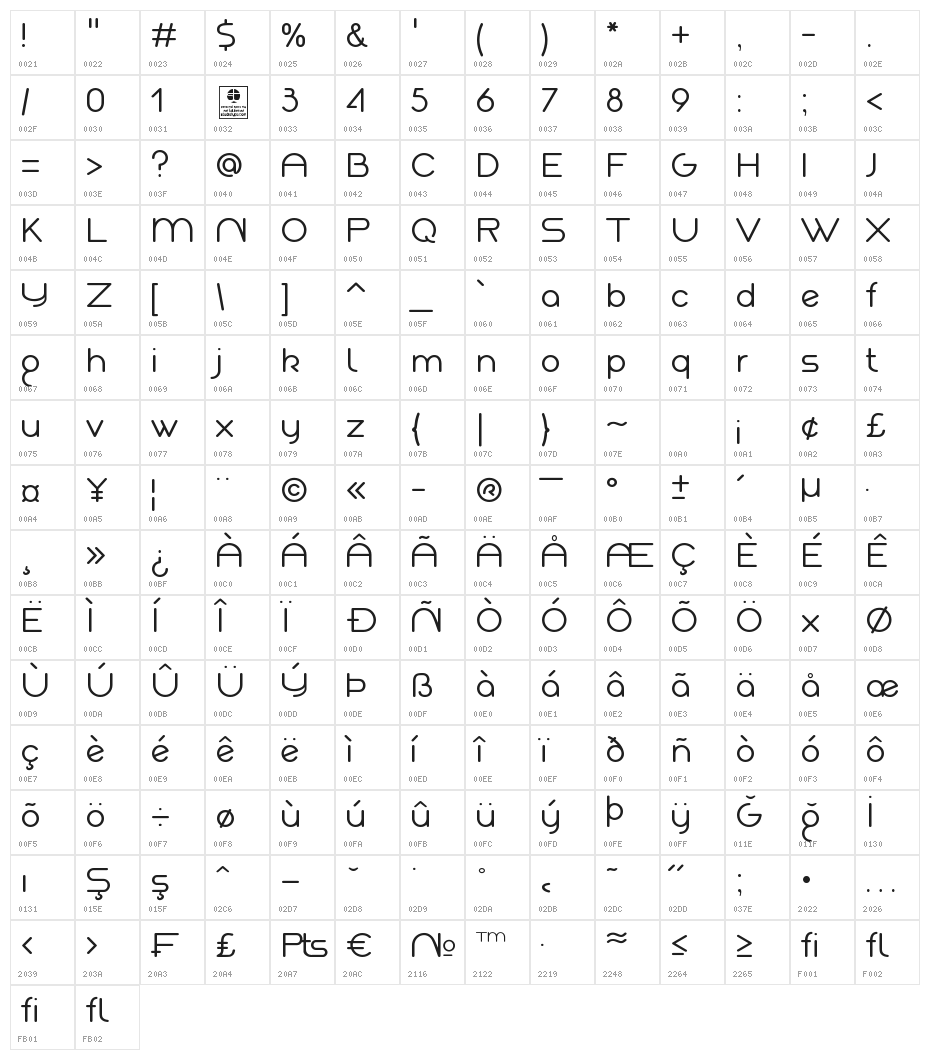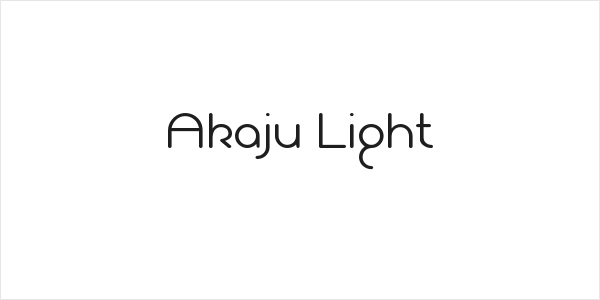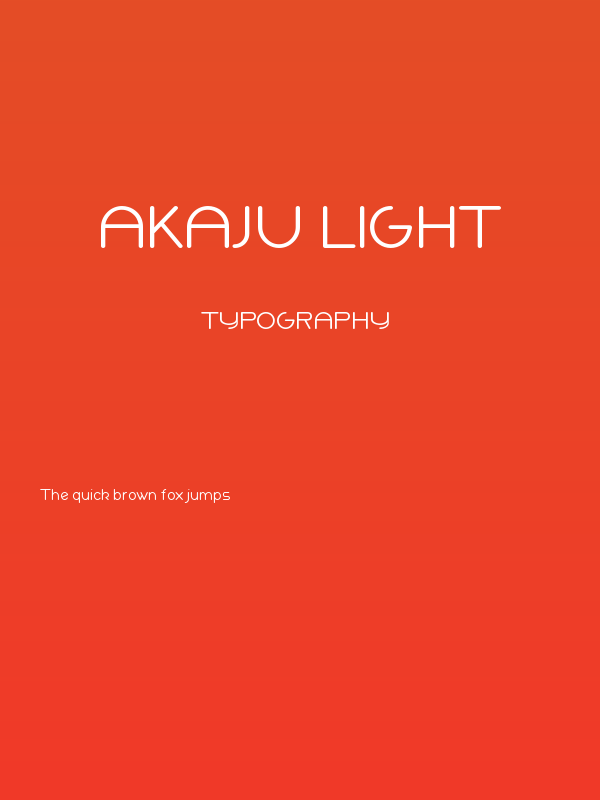
Akaju Light Font
Akaju Light Description
This font features a clean and modern design with rounded edges, giving it a friendly and approachable appearance. The characters are evenly spaced, contributing to its readability. The uppercase and lowercase letters maintain a consistent style, with smooth curves and a uniform stroke width. The numerals and special characters are designed to match the overall aesthetic, ensuring a cohesive look across all text. This font is versatile and can be used in various design projects where a contemporary and inviting feel is desired.
| Proposed Projects | Ideal for branding, web design, product packaging, and advertising materials that require a modern and approachable look. |